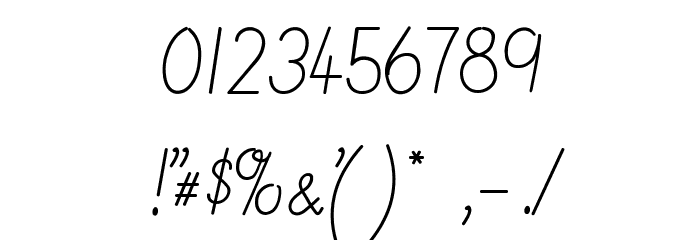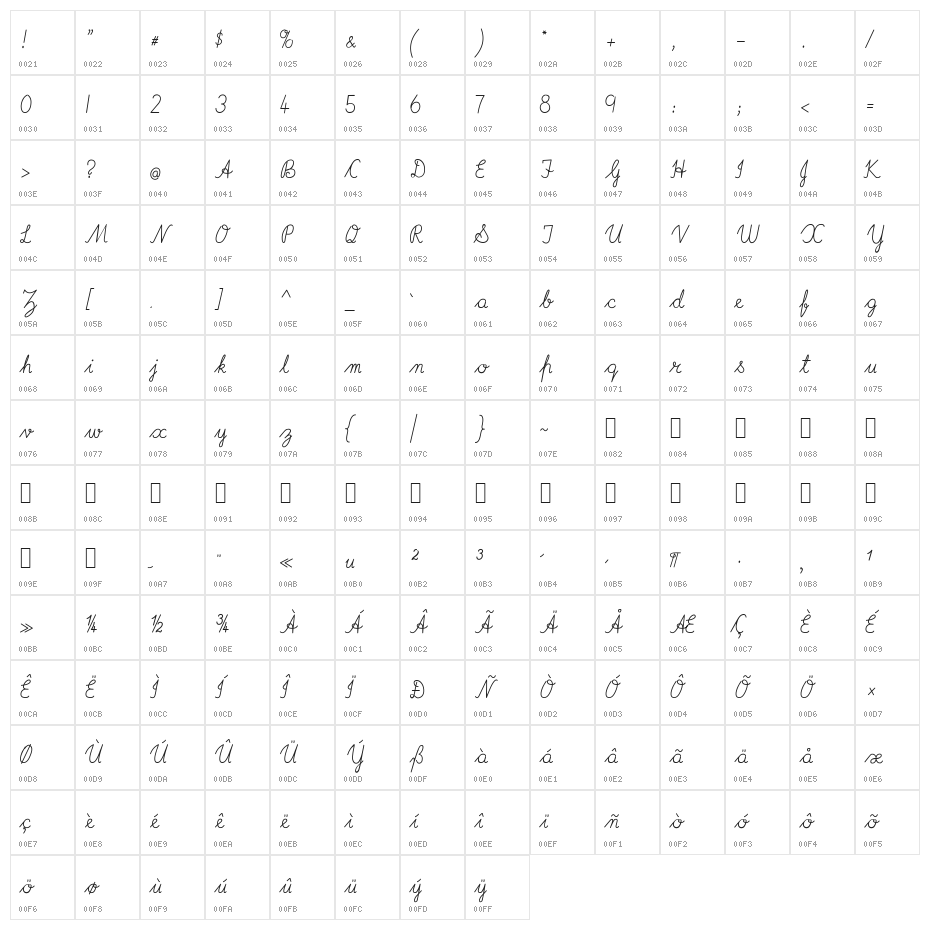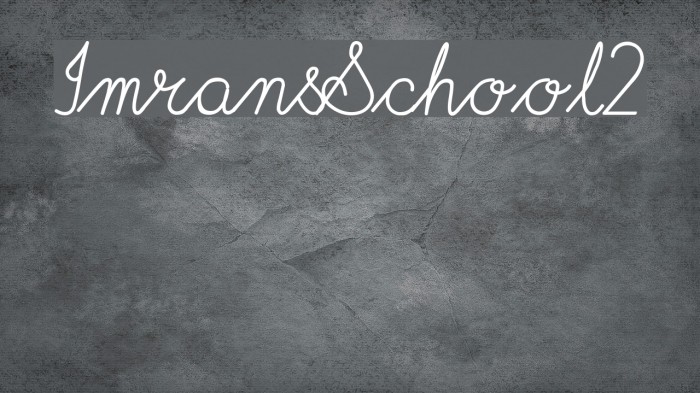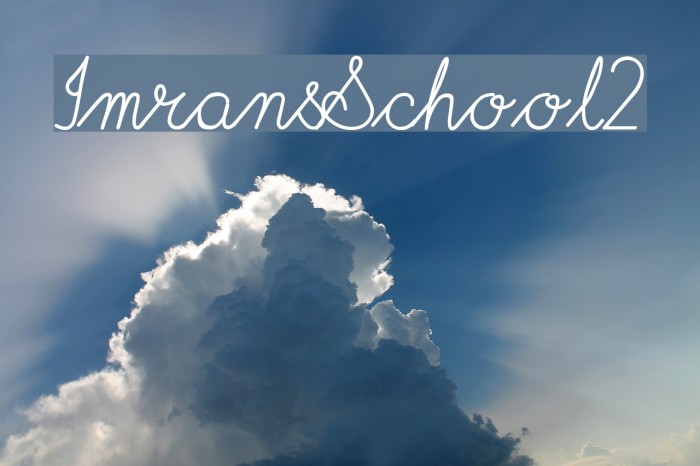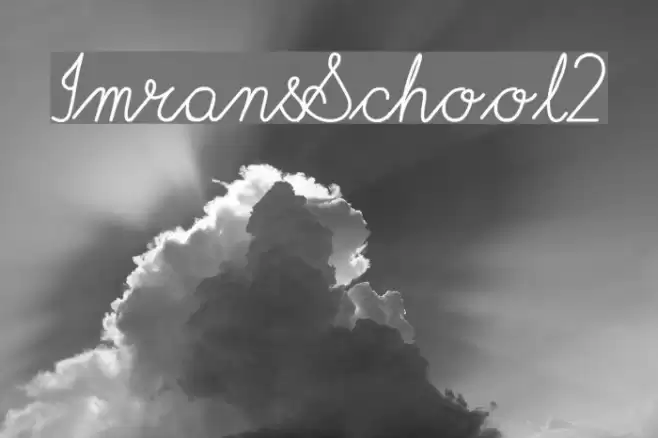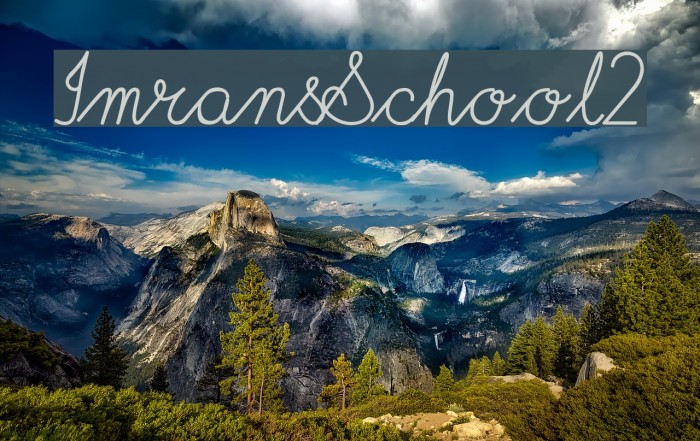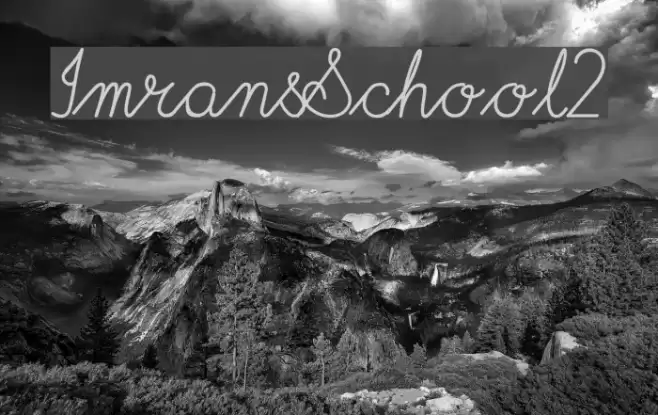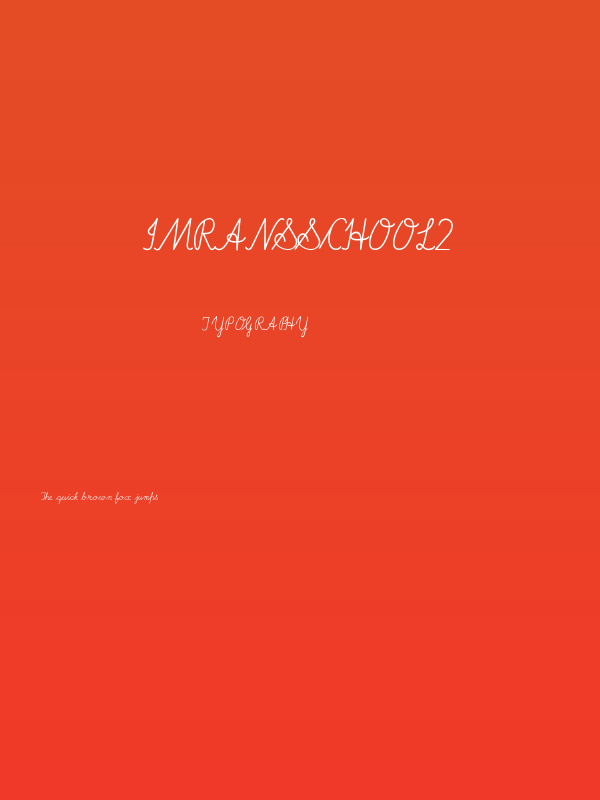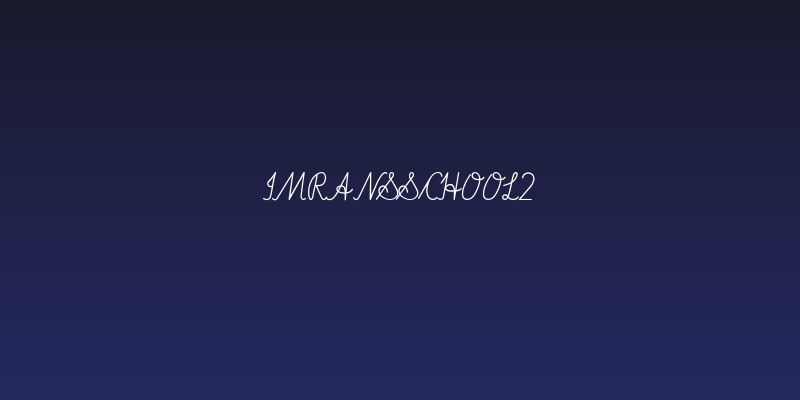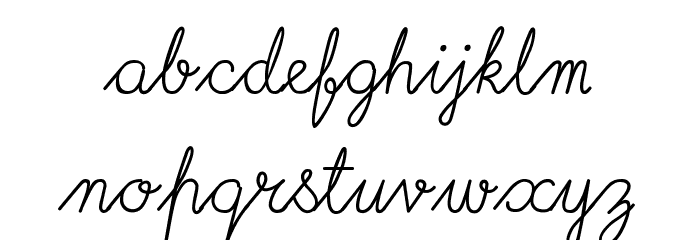
ImransSchool2 Font
ImransSchool2 Description
This font features a classic cursive style with elegant, flowing lines that mimic traditional handwriting. The uppercase letters exhibit a graceful, looping form, while the lowercase letters maintain a consistent, smooth flow. The numerals and special characters are designed to complement the overall script style, maintaining the same fluidity and elegance. The strokes are consistent in thickness, providing a harmonious and balanced appearance. This font is ideal for projects that require a personal touch, such as invitations, greeting cards, or branding materials that aim to convey sophistication and warmth.
| Proposed Projects | Ideal for invitations, greeting cards, branding materials, and any project requiring a personal, sophisticated touch. |